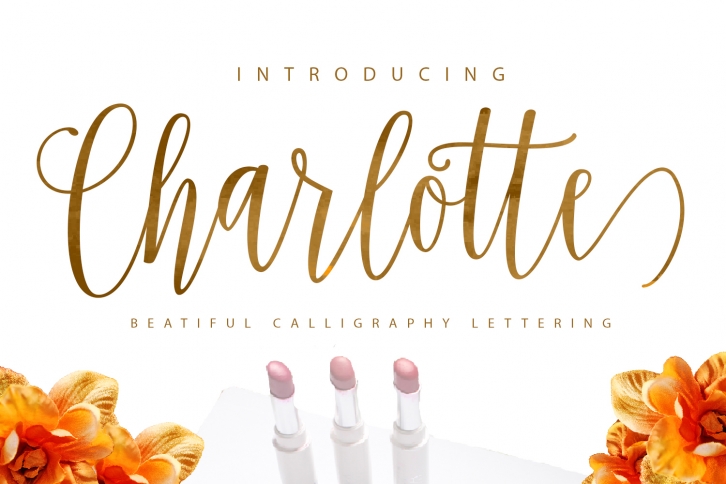
Charlotte Script is a trendy and unique font with an authentic style. It was designed by GenesisLab and it's a great choice for creative people who need such a font. It was released on July 13, 2017 and the file size is 12.75 MB. Charlotte Script will add an organic vibe to any design idea!